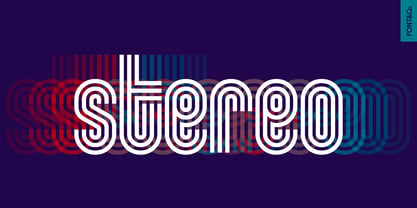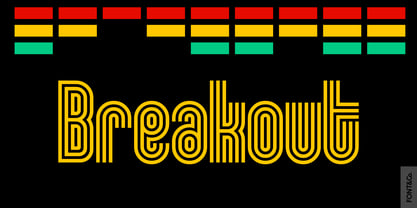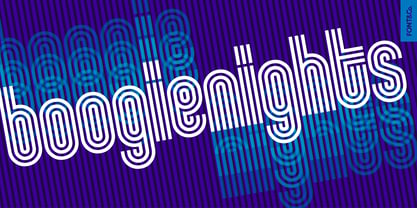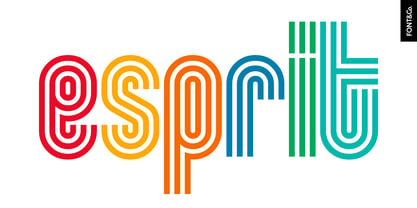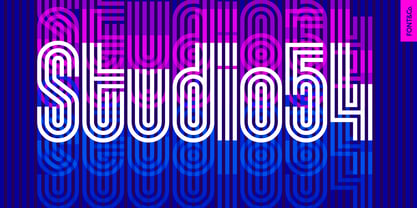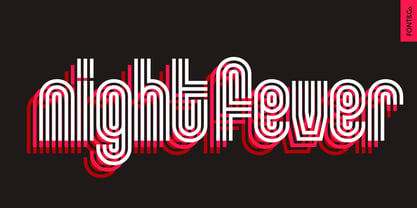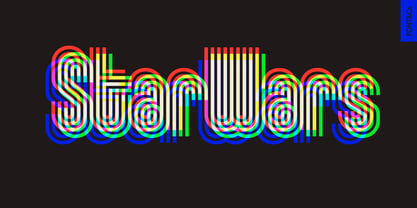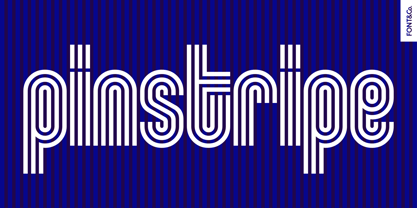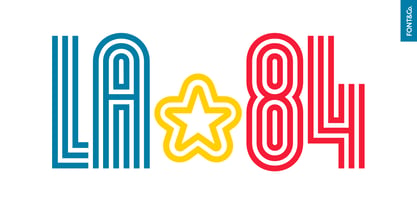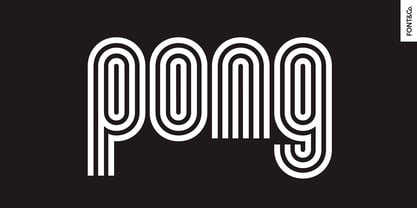
Pinstripe
by Font&Co.
The Pinstripe Font Family was designed by Francesco Gianesini and published by Font&Co.. Pinstripe contains 1 styles. More about this family
60s Op-Art, 70s Disco, 80s arcade graphics – Pinstripe channels three decades of bold visual culture. Designed for high impact, it delivers vibrant optical energy with structural precision. Carefully constructed spacing ensures seamless multi-line setting and consistent vertical rhythm. It includes stylistic alternates, special characters and broad language support.